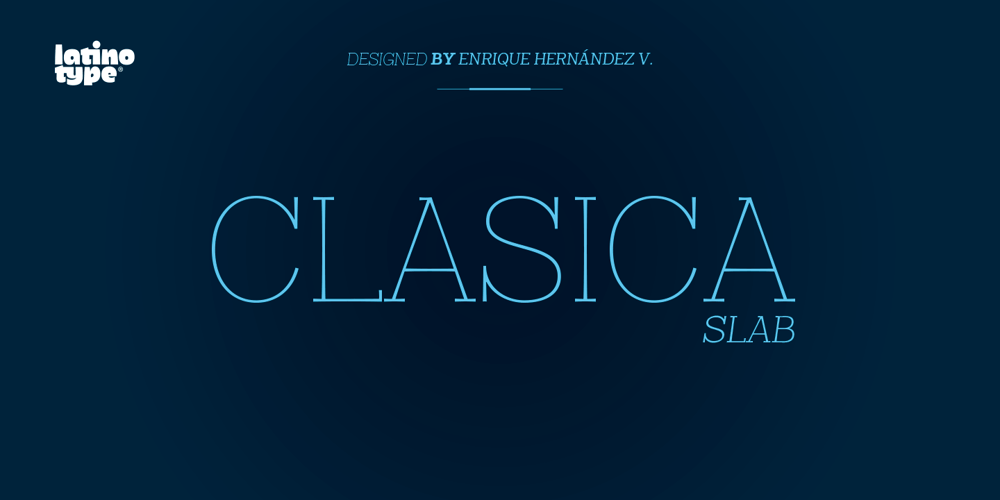
Clasica Font Family was designed by Enrique Hernández and published by Latinotype. Clasica contains 18 styles and family package options. The font family “Clasica” is ideal to cover every design need. Excellent for titles, paragraphs, magazines, books, editorials and logos. The particularity and identity of this font is found in the thinness of its vertical strokes and symmetrical serif. Inspired by the “Optima” font but with a serif that gives a different and new feel. “Clasica” counts with glyphs for the letters: a, e, f, g, r and y. This font family comes with 9 different weights with their respective italics.